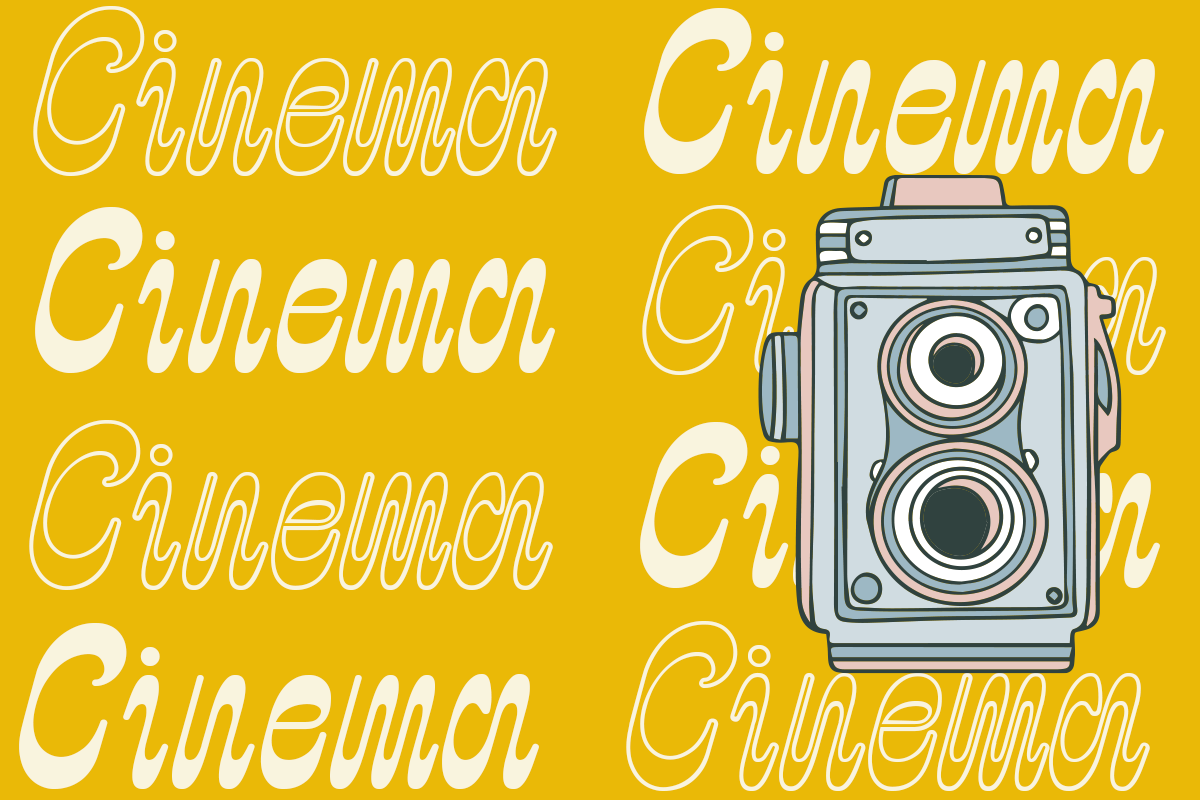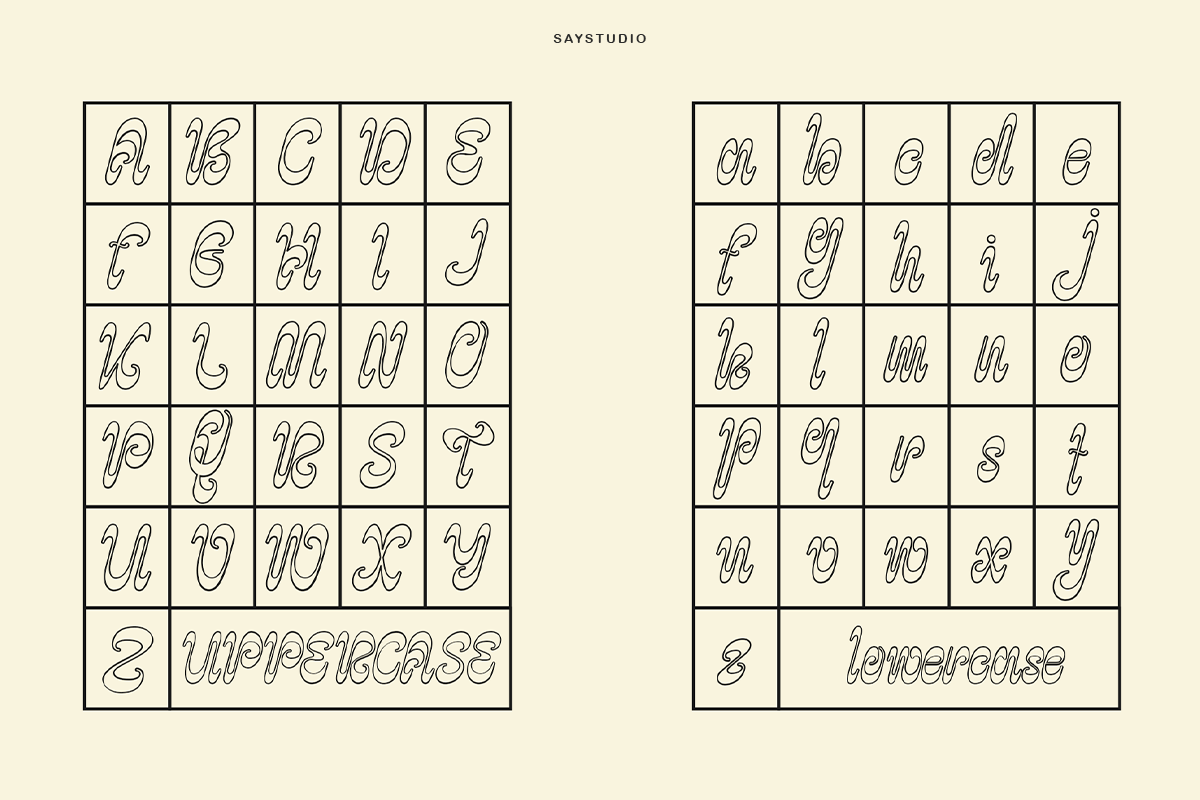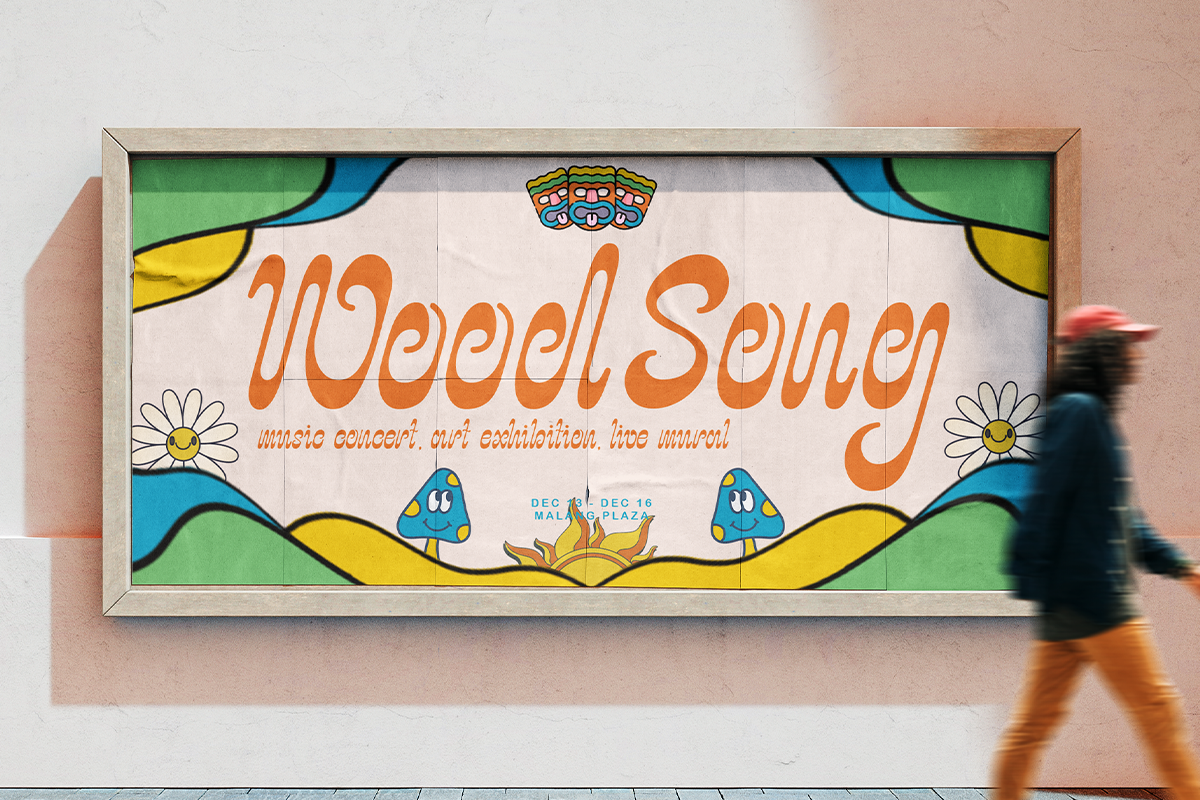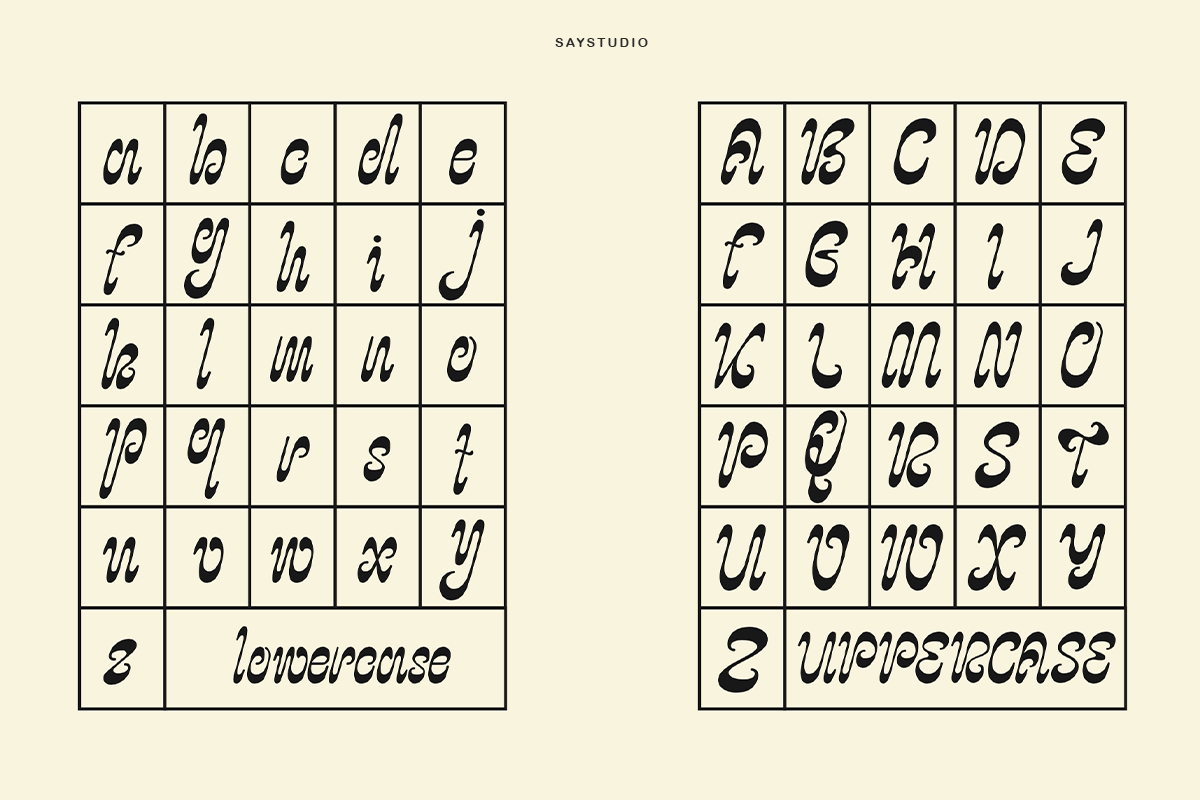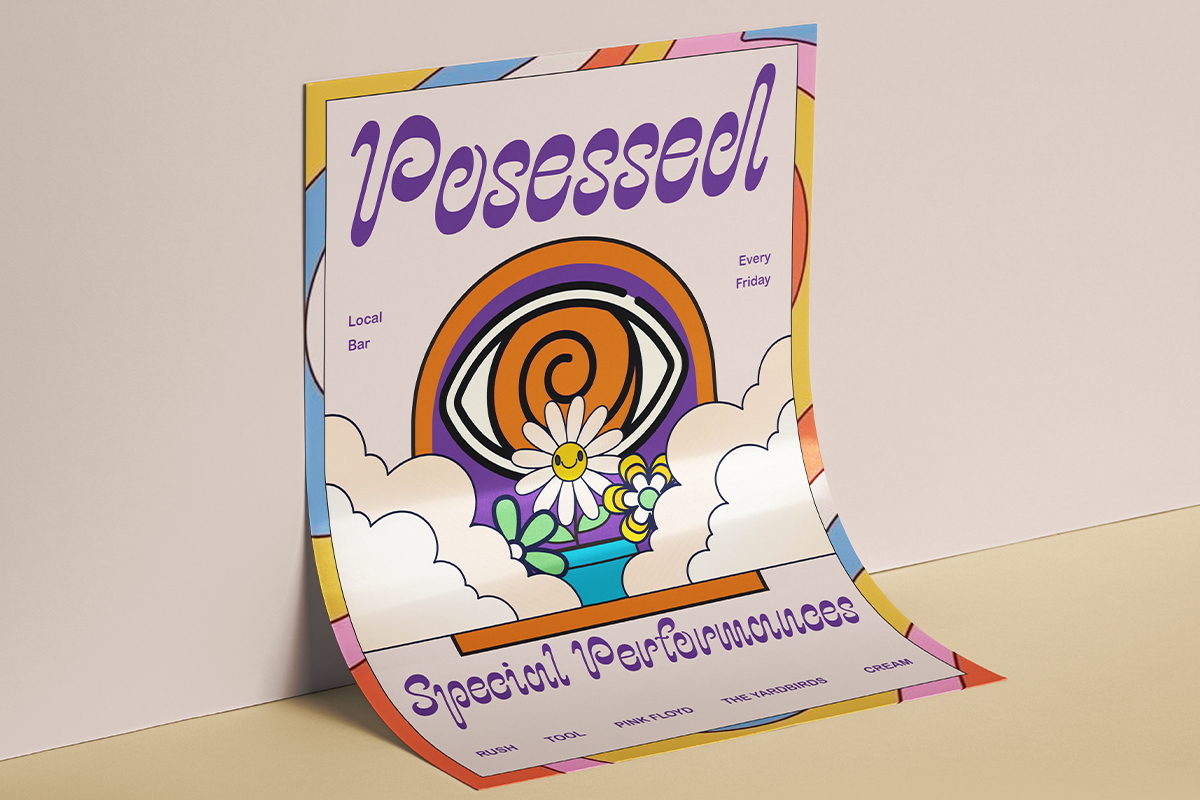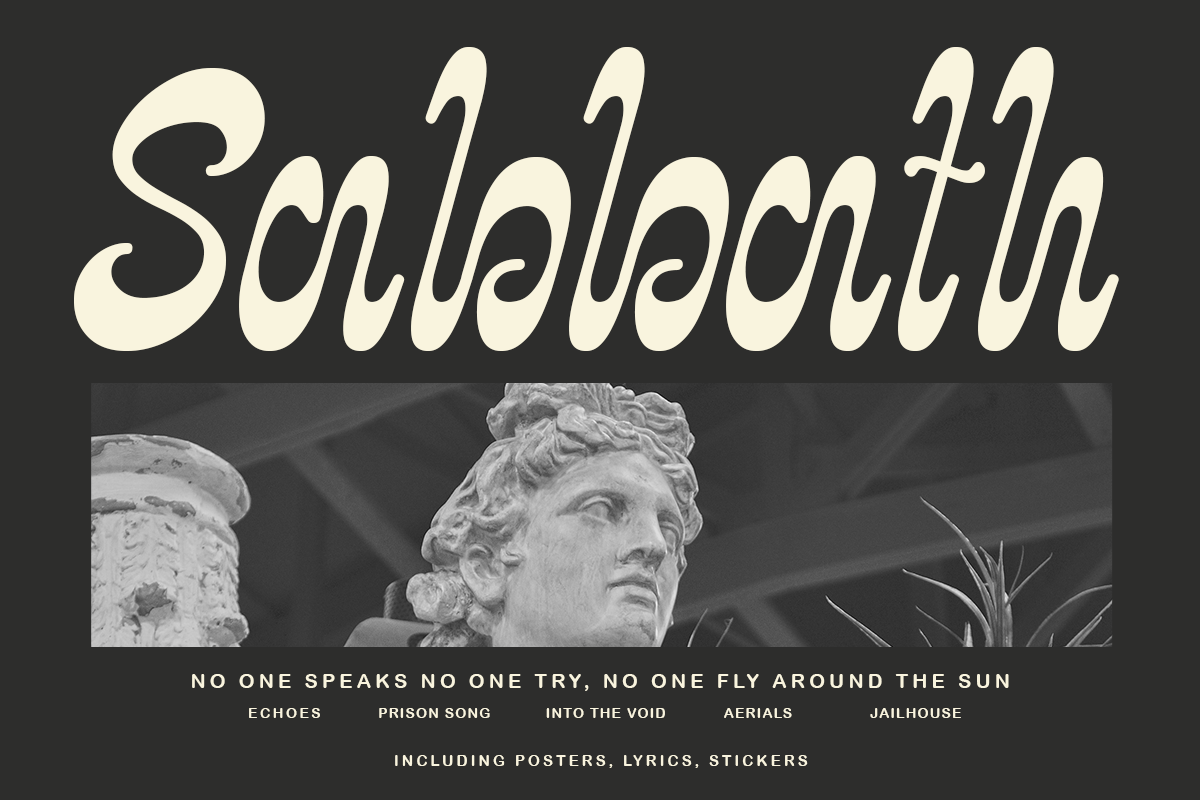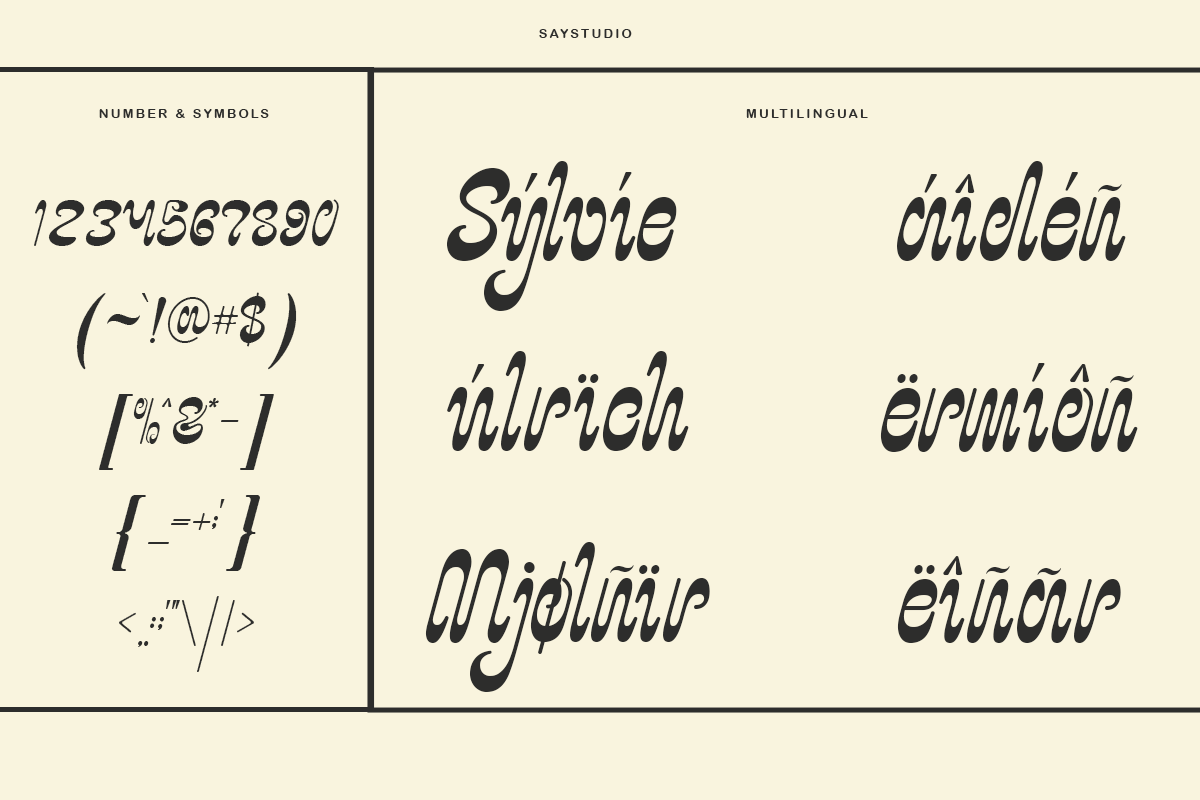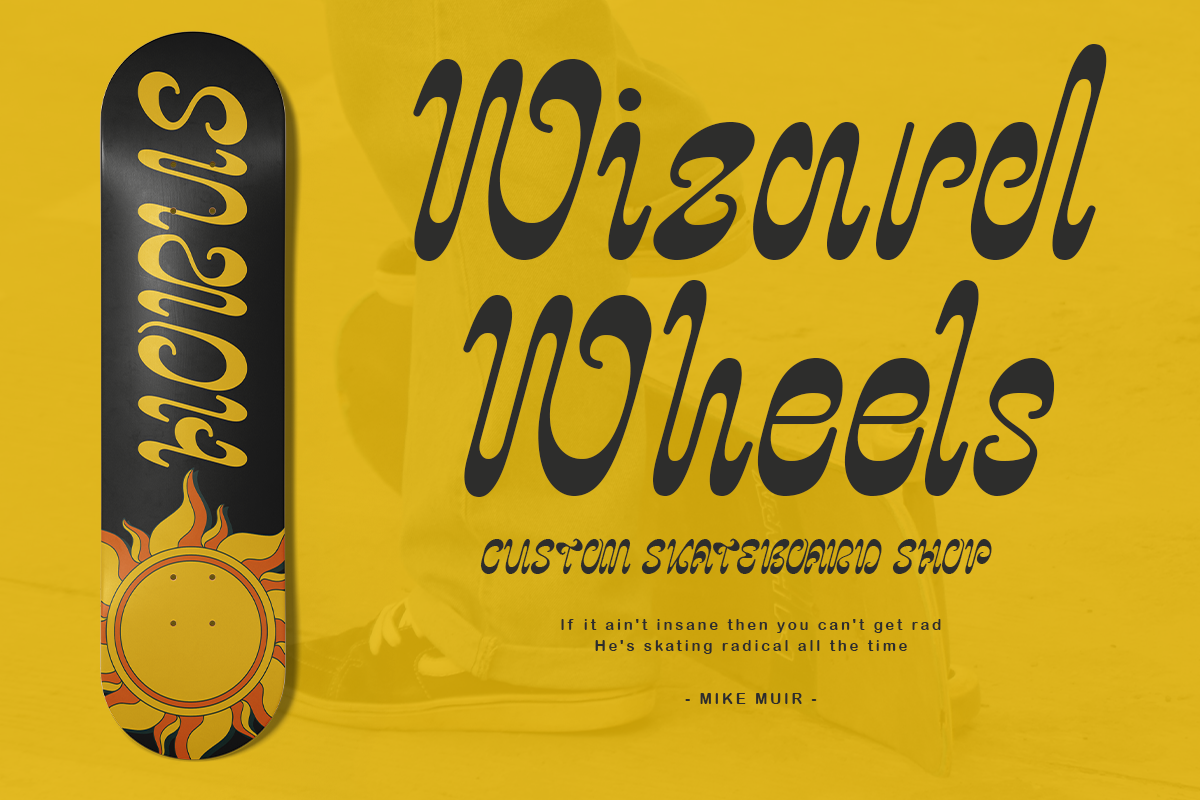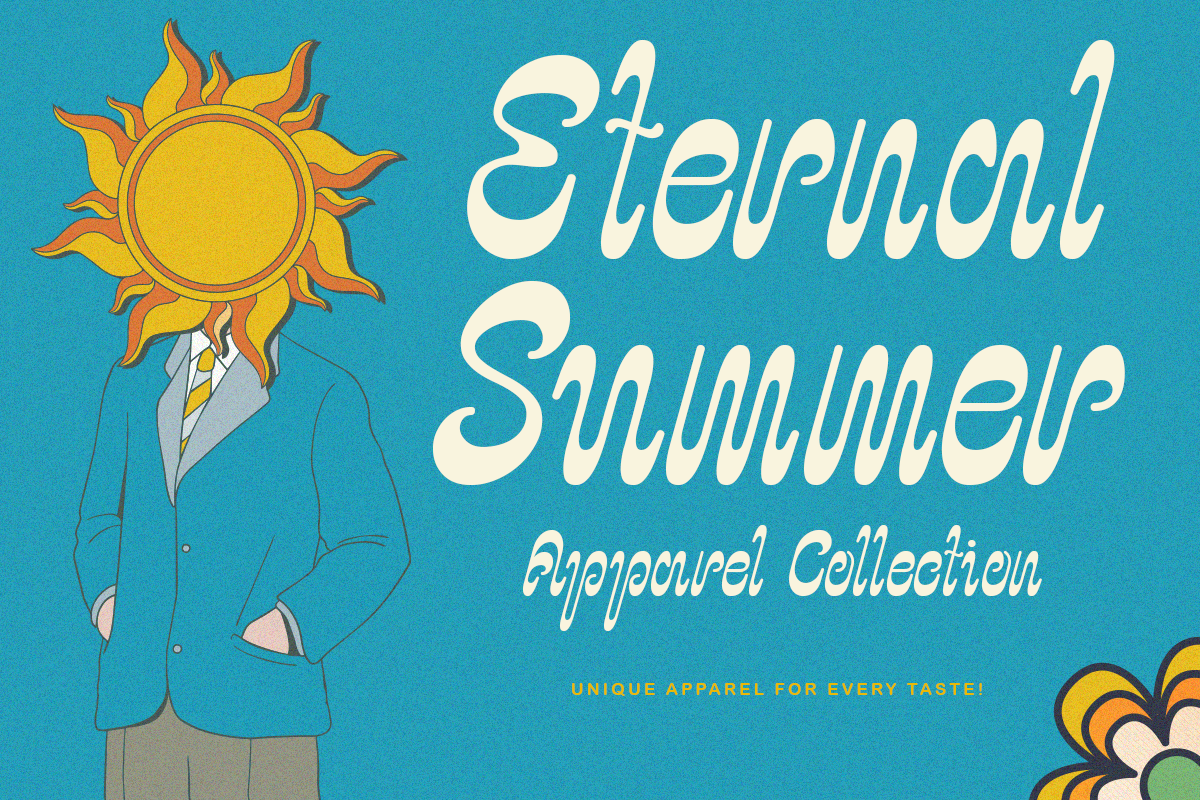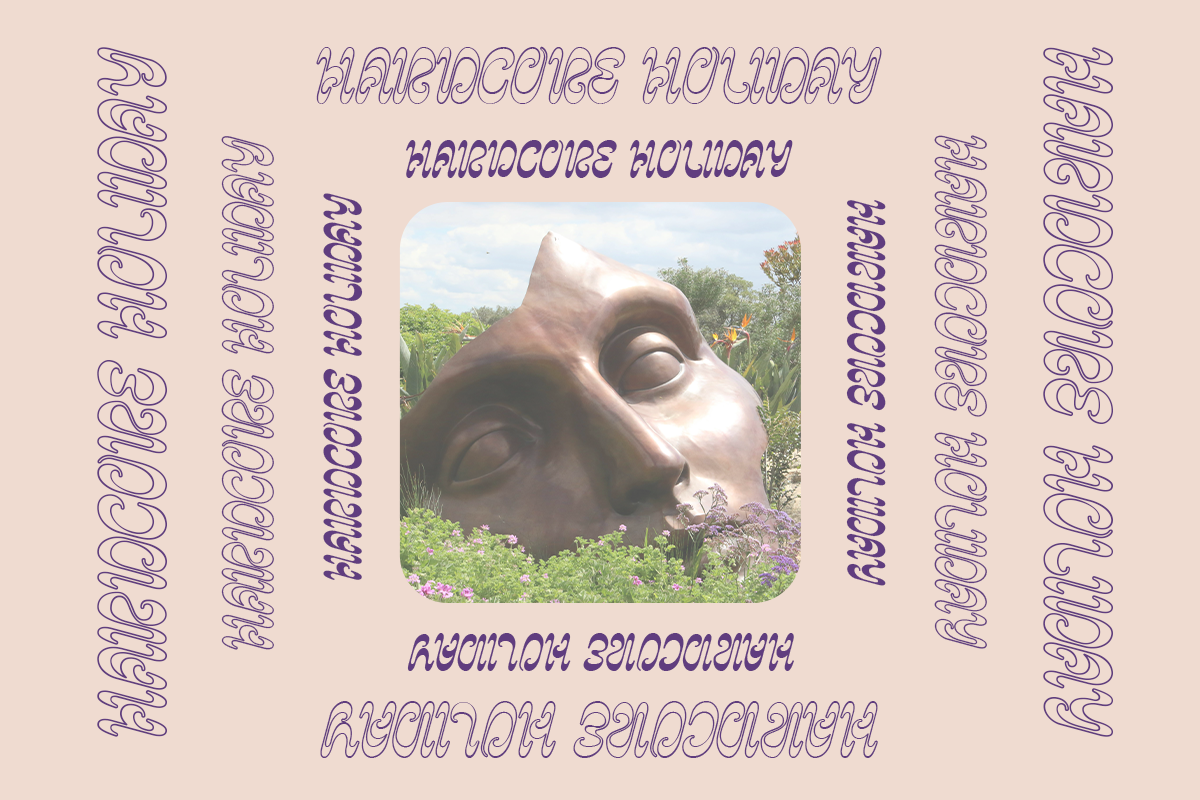
Psychodelic
Psychodelic is psychedelic italic typeface. Smooth italic letters create a groovy nostalgia style. Whether used for branding, editorial design, or eye-catching headlines, Psychodelic demands attention and leaves a timeless. Elevate your designs with the enigmatic allure with Psychodelic and stand out in today's.
- Multi Language Support